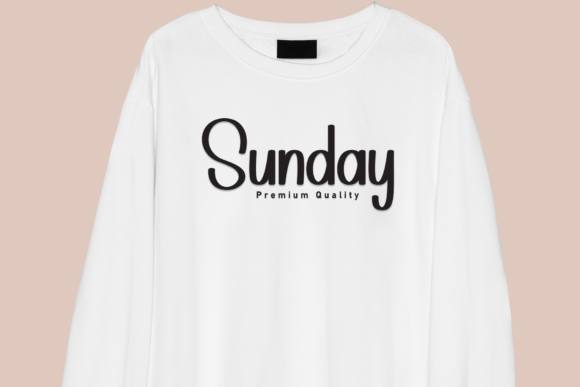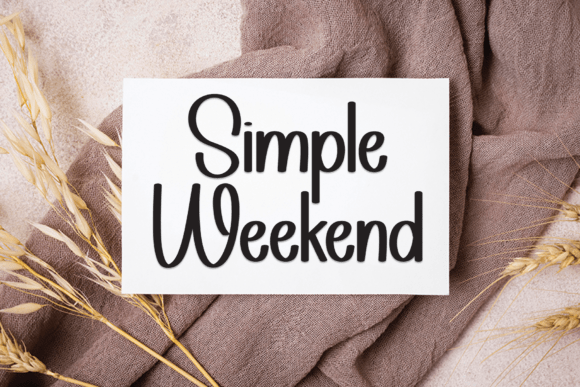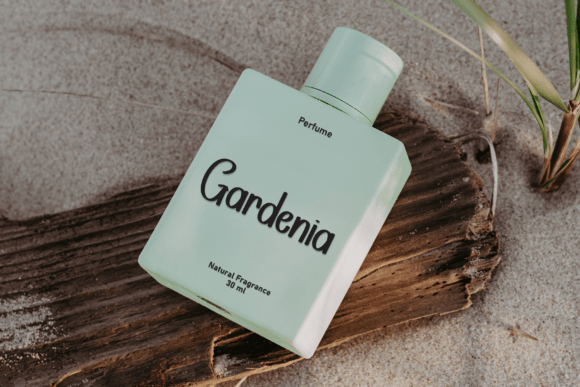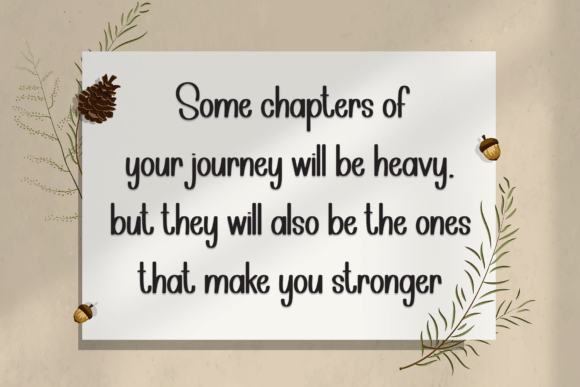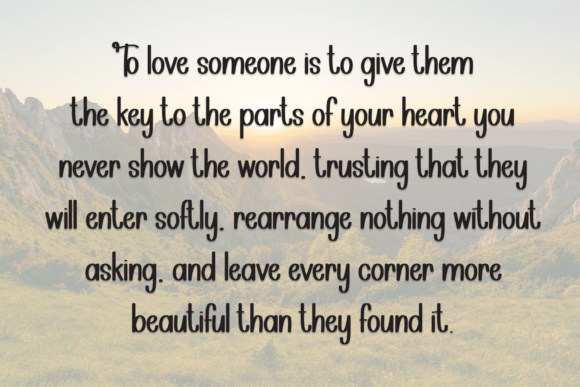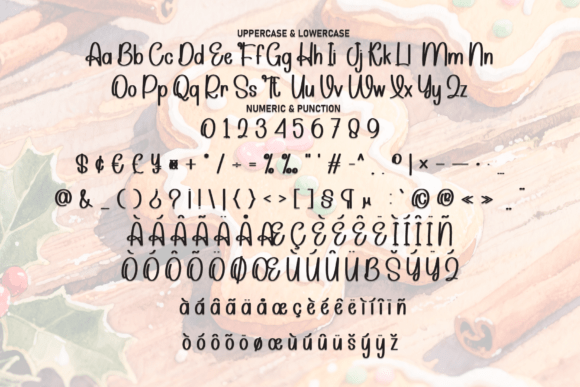
Gingerbread Font: The Perfect Blend of Modern Simplicity and Playful Charm
In the world of typography, fonts play a crucial role in conveying the tone and personality of a brand or design. For designers and crafters looking for a font that embodies a casual, yet stylish vibe, the Gingerbread font is an excellent choice. This article will delve into the features, benefits, and uses of the Gingerbread font, exploring how it can elevate your designs and add a fresh touch to your projects.
What is Gingerbread Font?
Gingerbread is a casual display font that seamlessly blends modern simplicity with a playful, approachable charm. Its clean shapes, soft edges, and well-balanced letterforms make it an ideal choice for a wide range of design applications. Whether you’re working on posters, branding, packaging, or social media graphics, the Gingerbread font is sure to capture the attention of your audience.
Key Features of Gingerbread Font
- Clean Shapes: The Gingerbread font boasts clean, crisp shapes that provide a modern and sophisticated look. These shapes ensure that the font remains clear and legible, even at larger sizes.
- Soft Edges: The soft edges of the Gingerbread font add a touch of warmth and approachability, making it perfect for designs that require a friendly and inviting tone.
- Well-Balanced Letterforms: The letterforms in the Gingerbread font are carefully crafted to ensure balance and harmony. This balance makes the font easy to read and visually appealing.
Benefits of Using Gingerbread Font
The Gingerbread font offers several benefits that make it a valuable addition to any designer’s toolkit. Some of these benefits include:
- Versatility: The Gingerbread font is incredibly versatile, making it suitable for a wide range of design applications, from posters and branding to packaging and social media graphics.
- Readability: Despite its playful and casual nature, the Gingerbread font remains highly readable, ensuring that your message is conveyed clearly and effectively.
- Personality: The Gingerbread font has a unique personality that can help your designs stand out from the crowd. Its blend of modern simplicity and playful charm makes it an excellent choice for brands looking to establish a friendly and approachable tone.
Uses of Gingerbread Font
The Gingerbread font is suitable for a variety of design applications, including:
- Posters: The Gingerbread font is perfect for creating eye-catching posters that require a bold and attention-grabbing headline.
- Branding: For brands looking to establish a friendly and approachable tone, the Gingerbread font is an excellent choice for logos, business cards, and other marketing materials.
- Packaging: The Gingerbread font can add a touch of personality to product packaging, making it stand out on store shelves.
- Social Media Graphics: The Gingerbread font is ideal for creating engaging social media graphics that require a fresh and friendly touch.
Tips for Using Gingerbread Font
To get the most out of the Gingerbread font, consider the following tips:
- Pair with Other Fonts: The Gingerbread font pairs well with other fonts, especially those with a more traditional or serif style. This contrast can add visual interest to your designs.
- Experiment with Colors: The Gingerbread font looks great in a variety of colors, from bold and bright to soft and pastel. Experiment with different color combinations to find the one that works best for your design.
- Use for Headlines: The Gingerbread font is perfect for headlines and titles, where its bold and attention-grabbing style can shine.
The Gingerbread font is a versatile and stylish addition to any designer’s toolkit. Its blend of modern simplicity and playful charm makes it perfect for a wide range of design applications, from posters and branding to packaging and social media graphics. With its clean shapes, soft edges, and well-balanced letterforms, the Gingerbread font is sure to add a fresh and friendly touch to any project. Whether you’re a designer or crafter, the Gingerbread font is an excellent choice for anyone looking to elevate their designs and establish a unique personality.